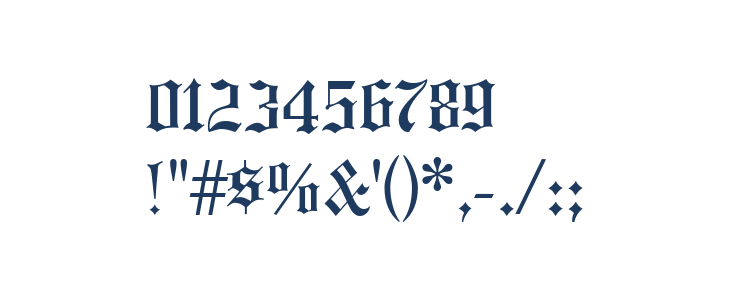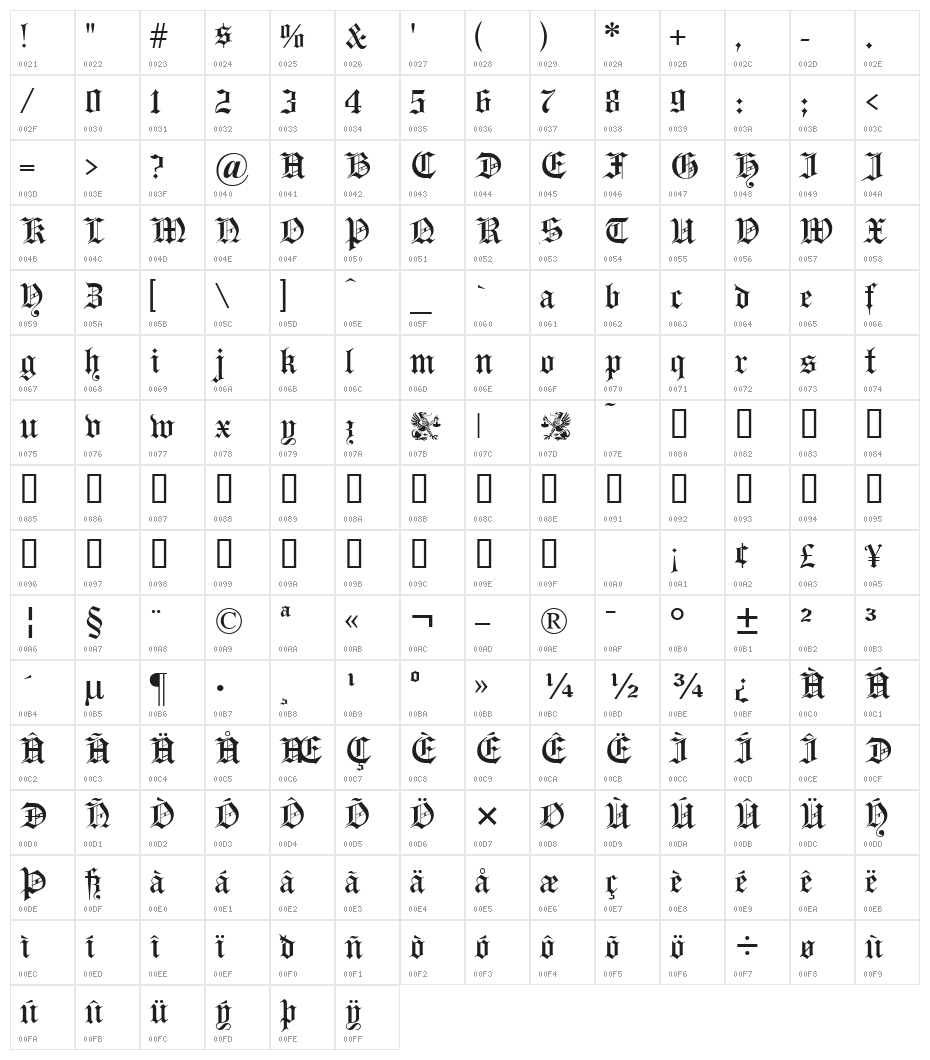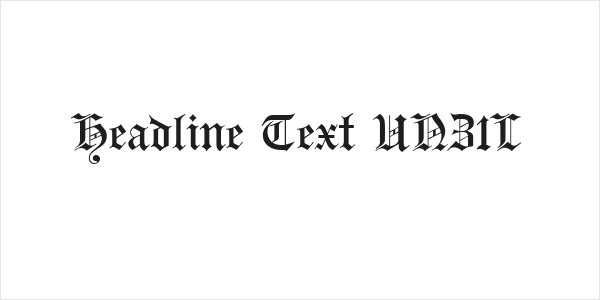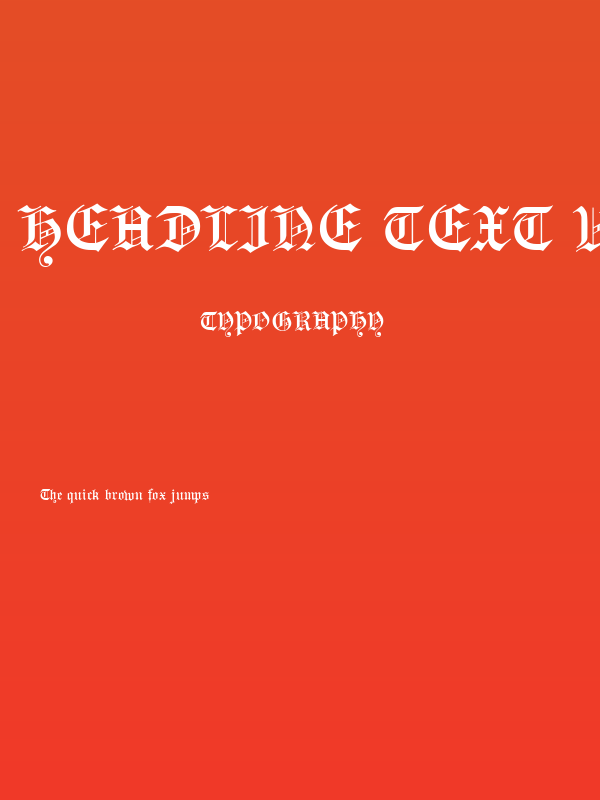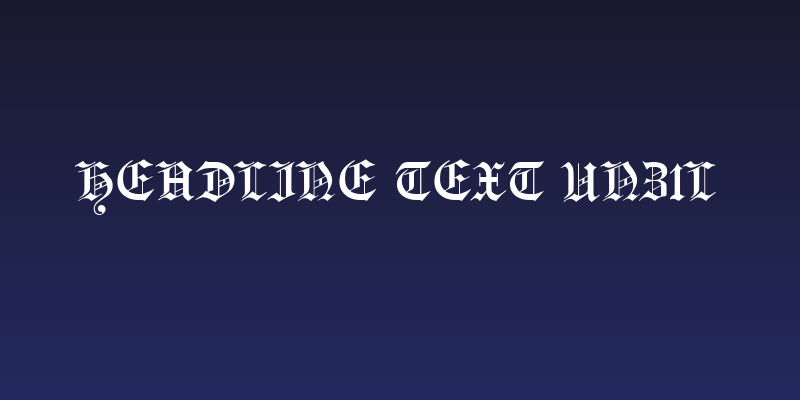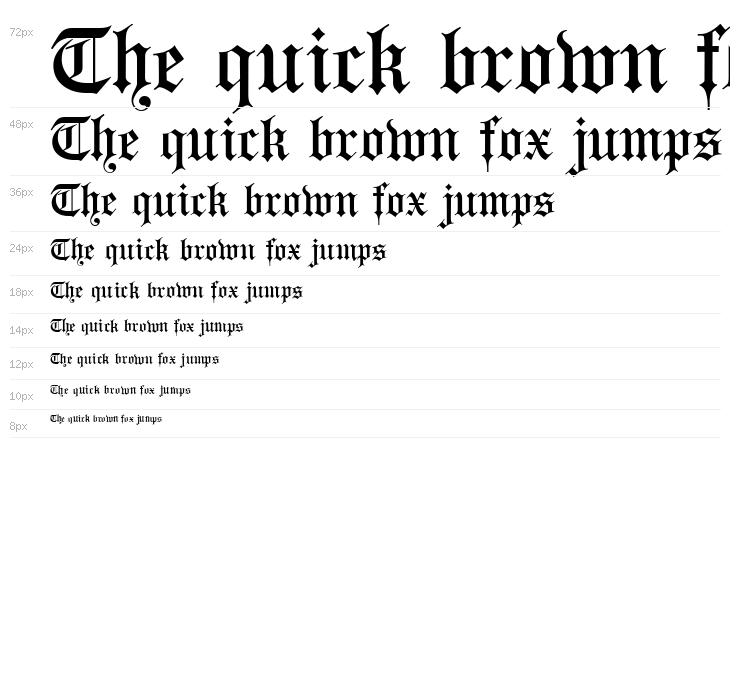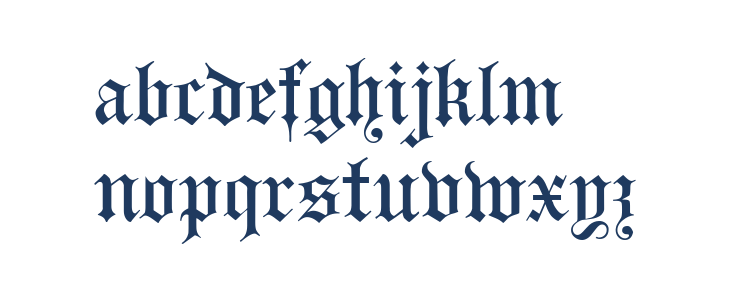
Headline Text UNZ1L Font
Headline Text UNZ1L Description
This font exhibits a classic Blackletter style, characterized by its intricate and ornate letterforms. The uppercase letters are bold and dramatic, featuring sharp angles and elaborate flourishes that give a sense of historical elegance. The lowercase letters maintain the same decorative style, with consistent stroke weight and a strong vertical emphasis. The numerals are equally stylized, adhering to the Gothic aesthetic with their angular forms. Special characters are crafted with the same attention to detail, ensuring a cohesive look throughout. This font is ideal for projects that require a touch of medieval or traditional flair, making it perfect for headlines, logos, or any design that aims to evoke a sense of antiquity.